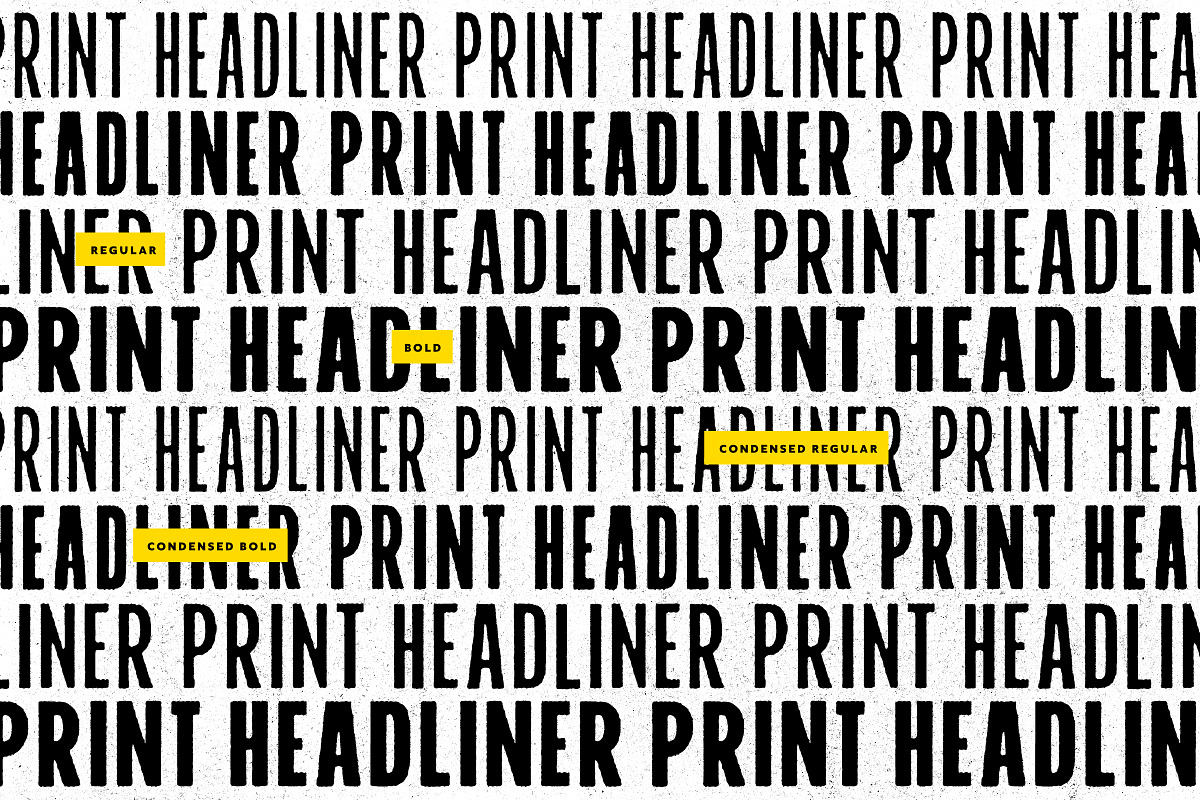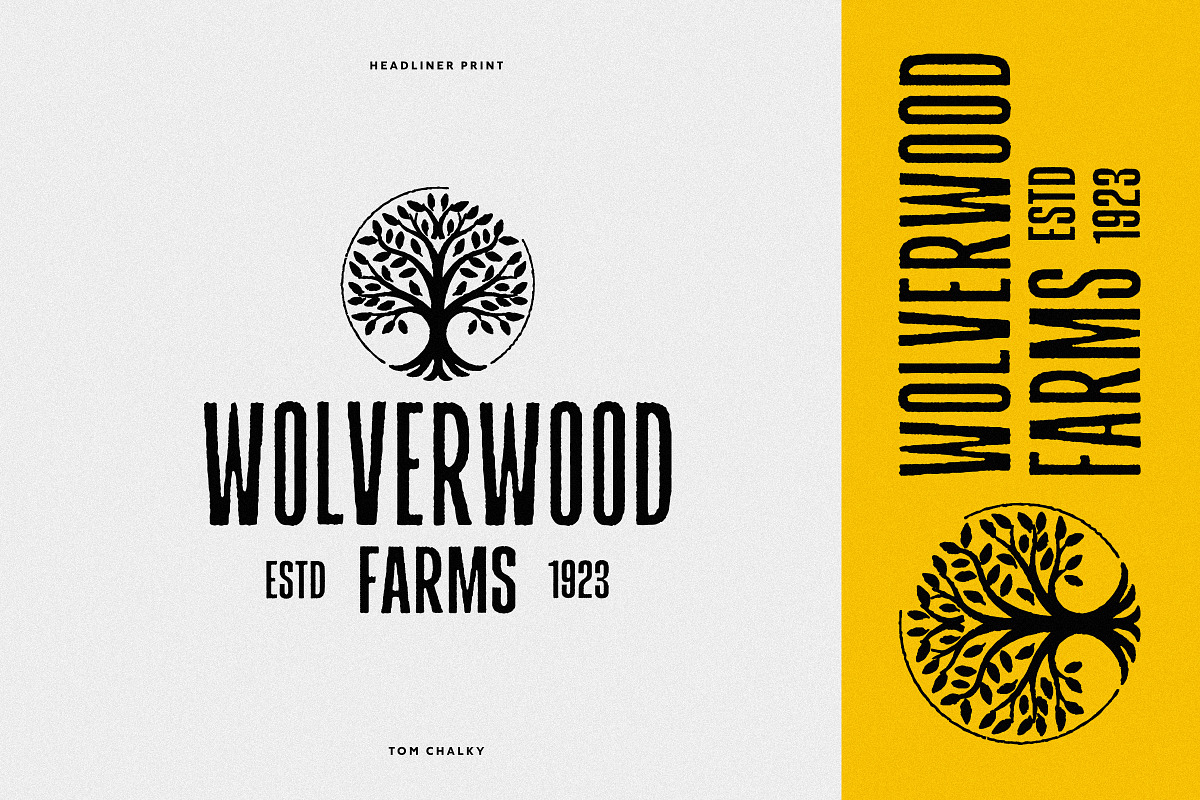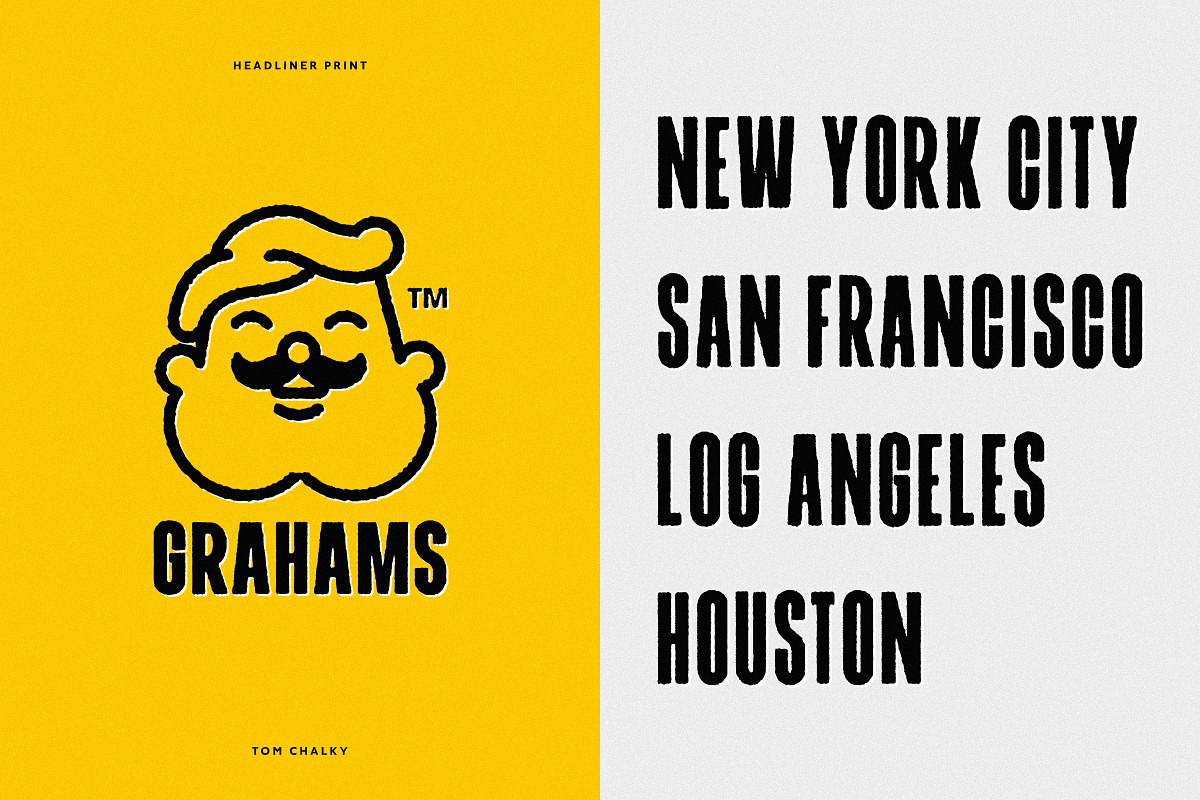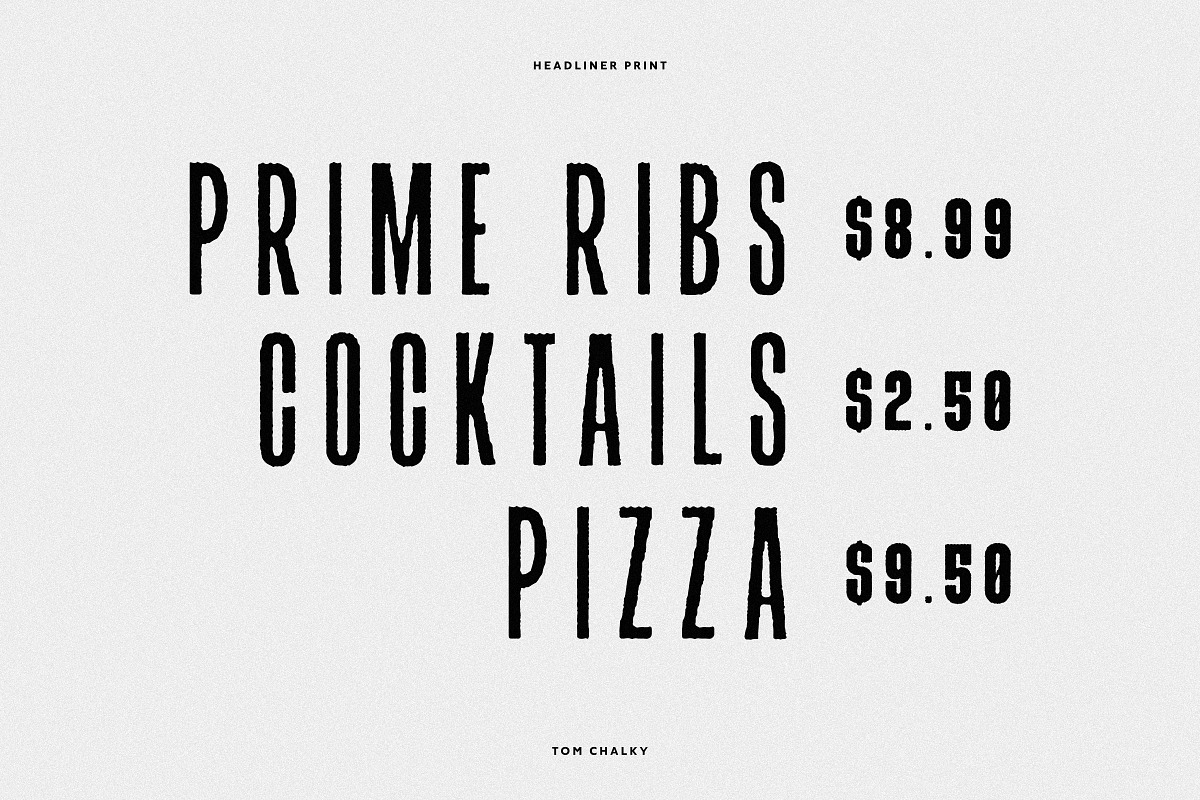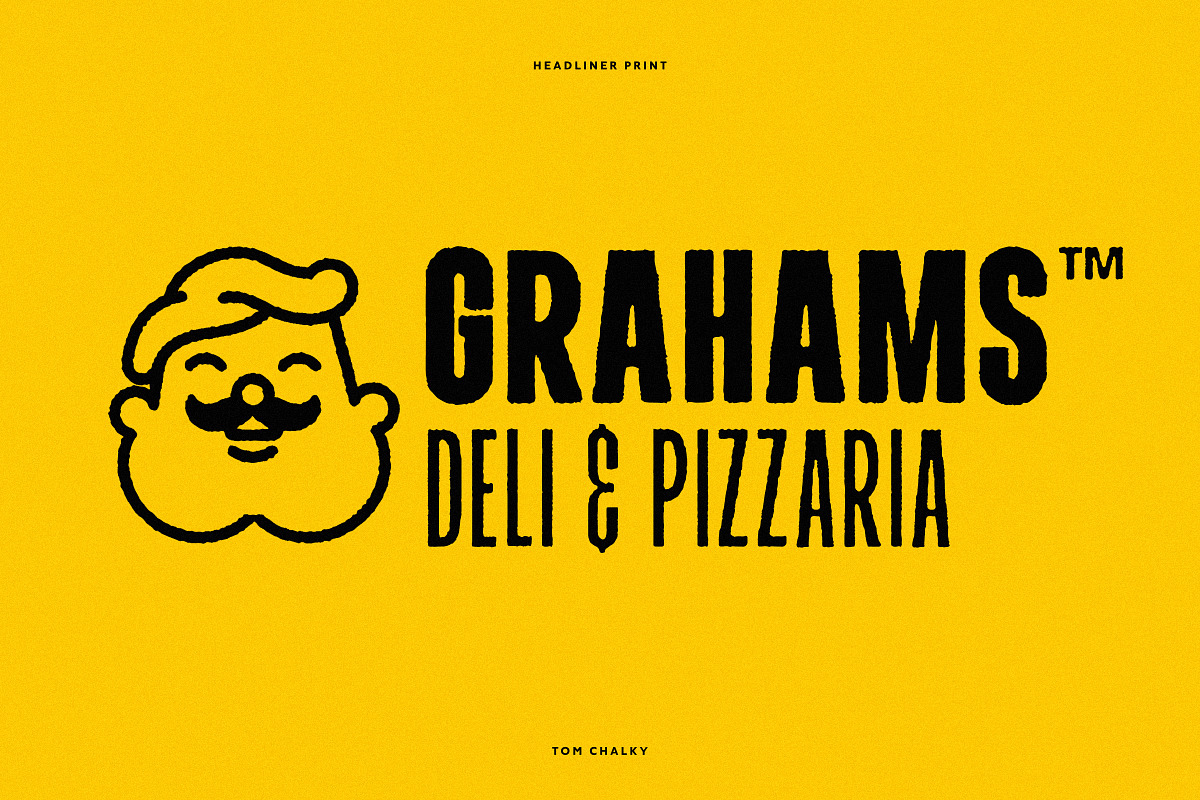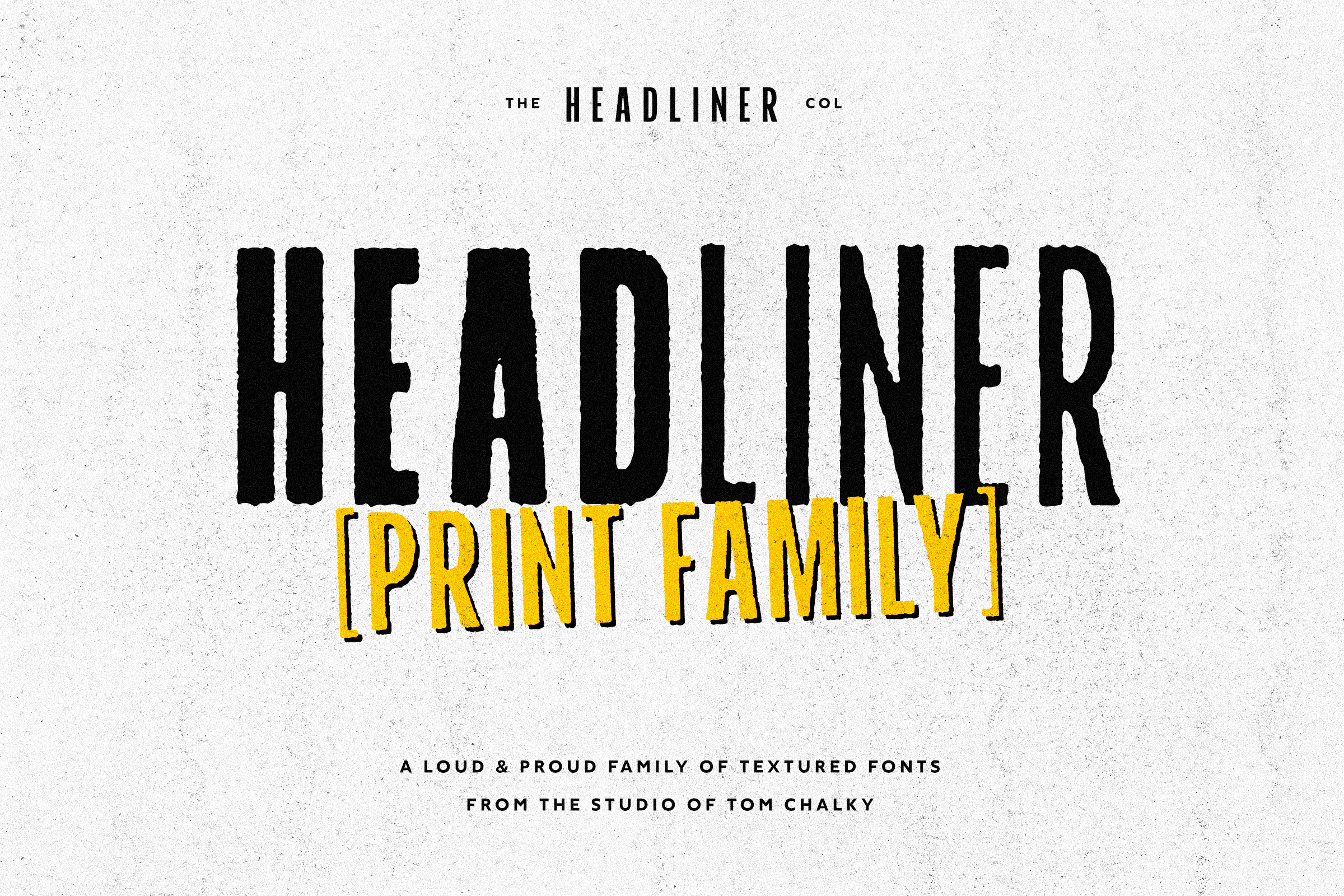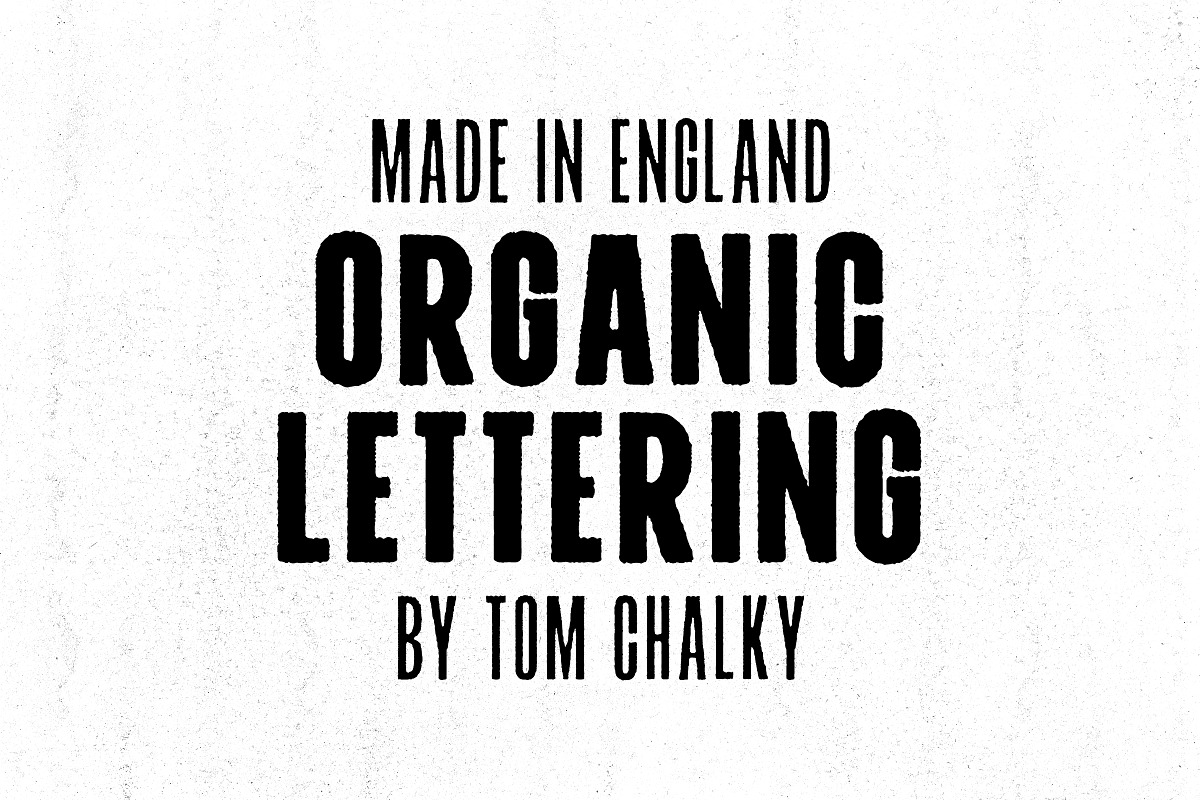
Headliner Print Font Family
Proudly introducing the Headliner Print Font Family
Inside, you’ll discover 4 display fonts specifically designed to grab and hold attention within your work. Based on the original design of its namesake, these textured alternatives add beautiful and unique textures, giving the typeface and your work an effective printed look without any additional work. Featuring Opentype kerning and multilingual support, this family is ready to command & conquer your projects right from the offset.